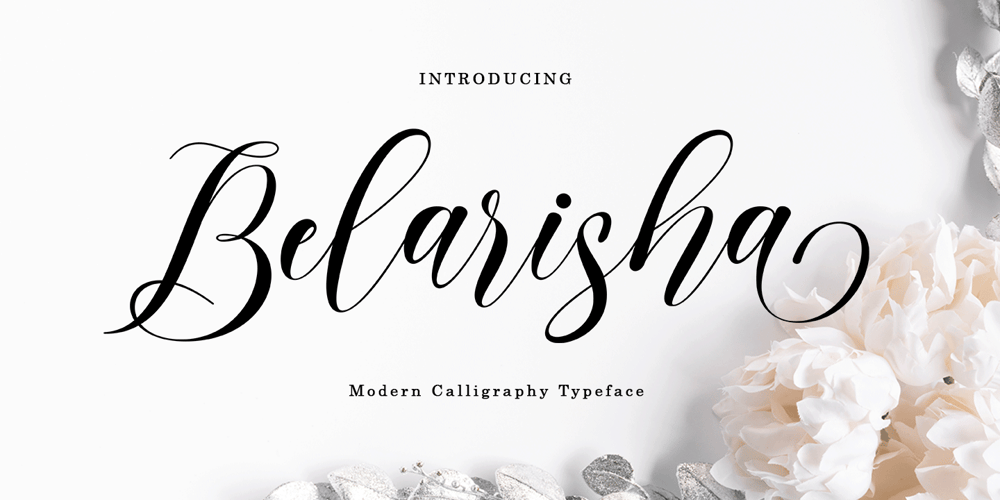
Belarisha Font Family was designed by Mu Fazzal and published by Bosstypestudio. Belarisha contains 1 styles and family package options. Belarisha is a beautiful script font with perfectly perfect alternates. This font will exude a romantic and elegant feeling of your design.Belarisha can be used for various applications, such as wedding designs, logos, invitations, posters, social media posts, and others.Feature:- Lots of Flying Machines- Additional characters encoded by PUA with a love accent- Can be used in any software, such as Adobe Photoshop, Illustrator, even Microsoft Word, PowerPoint, and others.- multilingual glyphs.Thank you